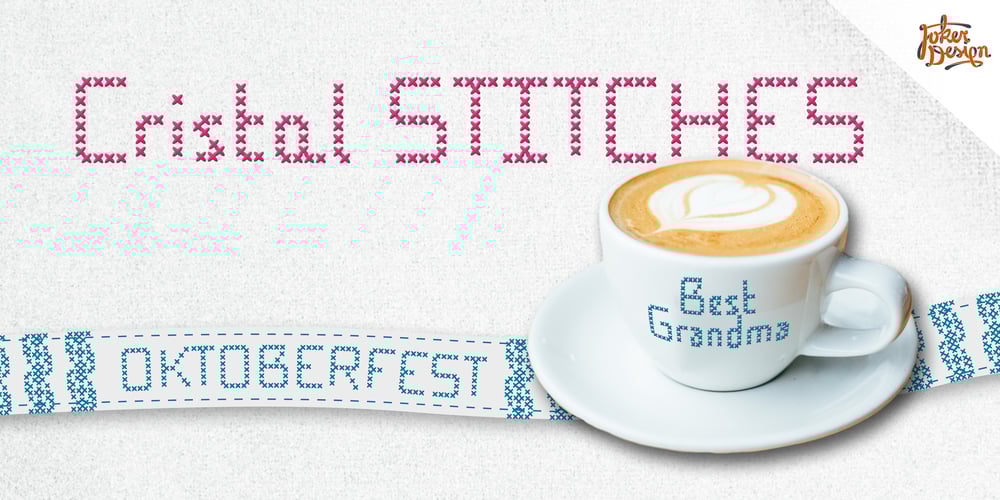
Cristal Stitches
Cristal Stitches font
Cristal Stitches Font Family was designed by Johannes Krenner and published by Johannes Krenner. Cristal Stitches contains 6 styles and family package options. Whether it’s your grandparents birthday, „Almabtrieb“ (ceremonial driving cattle down from the alpine pastures) or Oktoberfest (ceremonial drinking of huge amounts of beer): create the homely feeling of embroidery with this font. It comes with a vast language support, open type features, stylistic alternatives, boxes and frames, various numeral sets … DEUTSCH: Ob Alm-Abtrieb oder Oktoberfest: Erzeuge das heimelige Gefühl großelterlicher Stickereien mit diesem Font. Große Sprachvielfalt, Opentype-Features, stylistische Alternativen, Boxen und Rahmen, diverse Zahlensysteme …